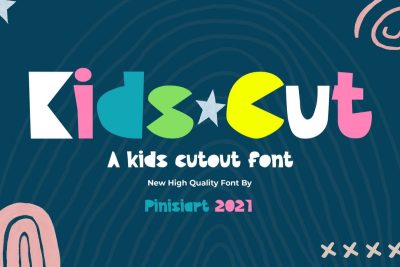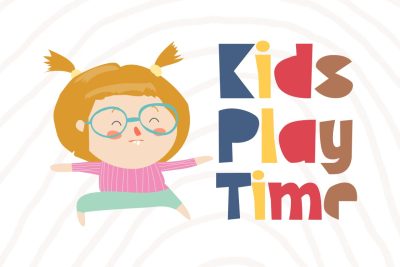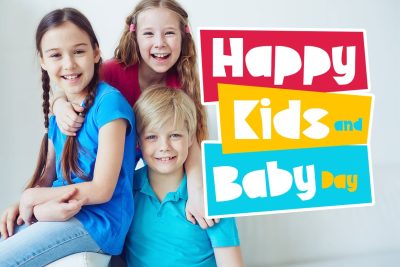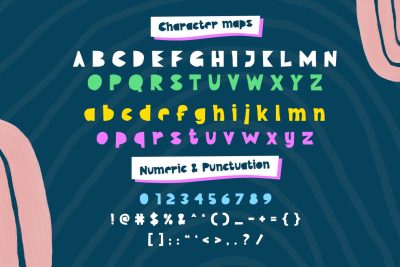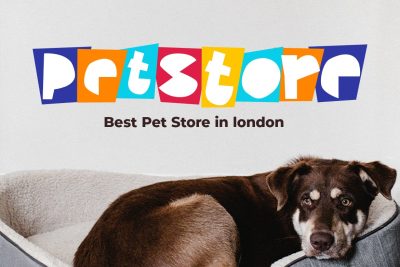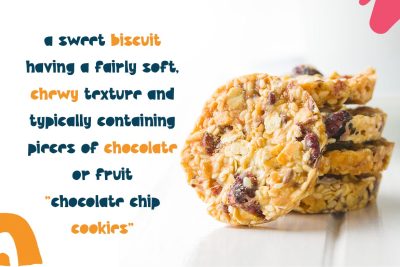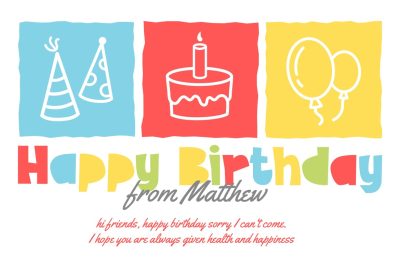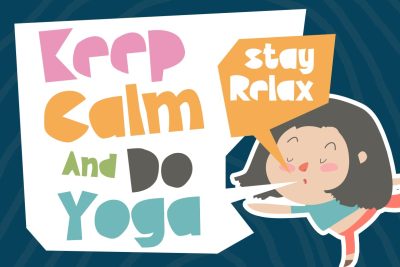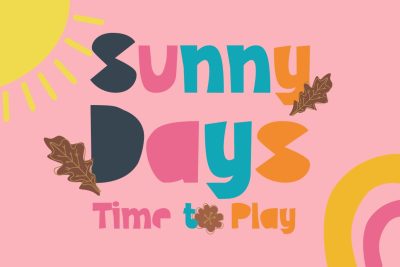
funny font kids cut
Kids Cut
Funny Font Kids Cut is a playful and cheerful typeface designed to bring joy and energy to any project. Inspired by the vibrant and imaginative world of children, this font features bold, colorful, and slightly irregular letterforms. As a result, it adds a sense of creativity and excitement to your work. Its fun, handcrafted look makes it perfect for designs that need a lively and lighthearted vibe. Furthermore, the quirky shapes and paper cutout style make it ideal for projects targeting kids or families.
With its friendly aesthetic, Funny Font Kids Cut brings a sense of fun to every design. It is bold, easy to read, and versatile. Whether youโ€™re creating colorful posters, educational materials, or playful branding, this font will grab attention. Moreover, it ensures your message stands out with a happy and youthful feel.
Funny Font Kids Cut Perfect For
Kids Cut is perfect for designers, educators, and creators who want to add a cheerful charm to their work. For example, graphic designers can use it for childrenโ€™s book covers, school posters, or event invitations. Its fun and vibrant style makes it a great choice for kid-friendly branding and packaging. Additionally, it works well for birthday cards, party banners, or playful logos.
Educators will also love using this font for classroom materials, worksheets, and activity books. Because of its engaging look, it helps capture childrenโ€™s attention and makes learning more enjoyable. Similarly, content creators, bloggers, and YouTubers can use Funny Font Kids Cut to add personality to banners, video titles, or thumbnails. Itโ€™s a simple way to make digital content stand out.
This font is also ideal for businesses that cater to children or families. For instance, toy companies, kids’ apparel brands, and product packaging designers can use its playful style to attract younger audiences. Likewise, it works perfectly for merchandise like tote bags, stickers, or kidsโ€™ apparel.
In conclusion, Funny Font Kids Cut guarantees a youthful and energetic look for every project. Its cheerful and handcrafted feel resonates with kids, parents, and anyone who loves fun designs. Whether youโ€™re working on education, branding, or creative projects, this font delivers charm and joy every time. Ultimately, itโ€™s a versatile and eye-catching choice for anyone looking to inspire smiles and creativity.
A fresh paper that is cut out and create a font. Full of happiness and joyful adventure in it. Suit perfectly for kids themes books market, online games, stationary, school supplies font, poster, birthday invitation, youtube covers, youtube thumbnails, social media page covers and so on…